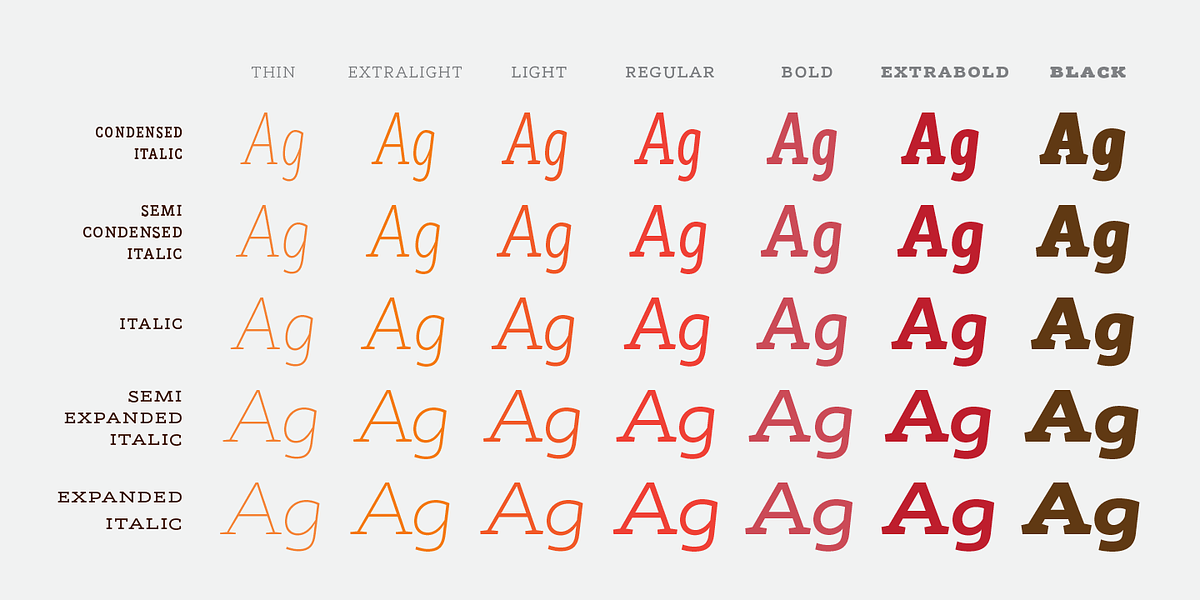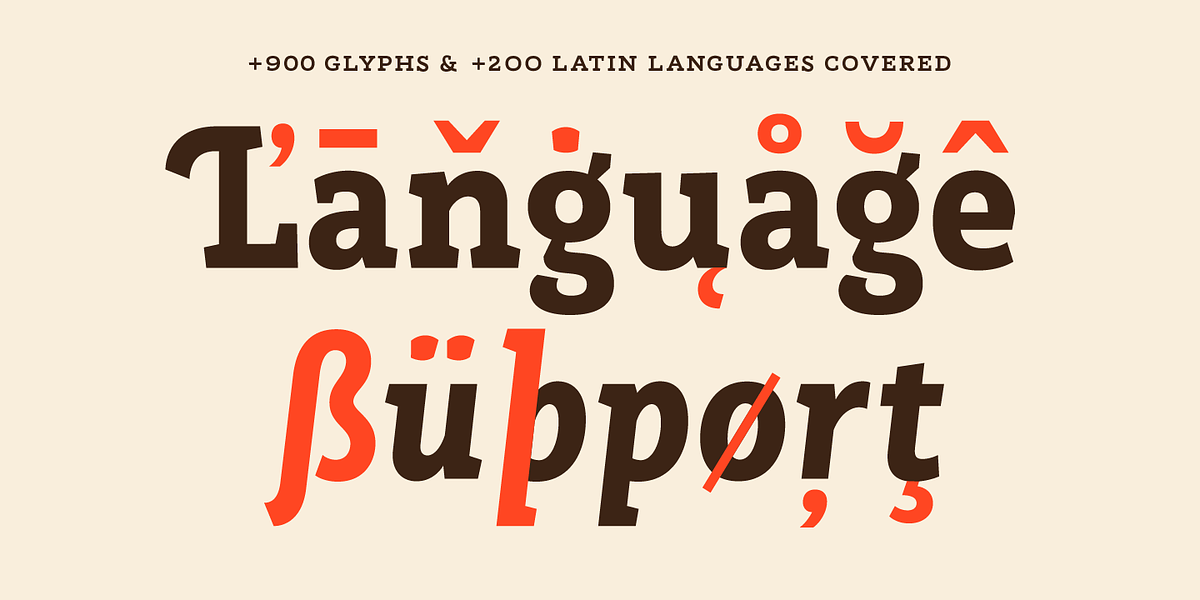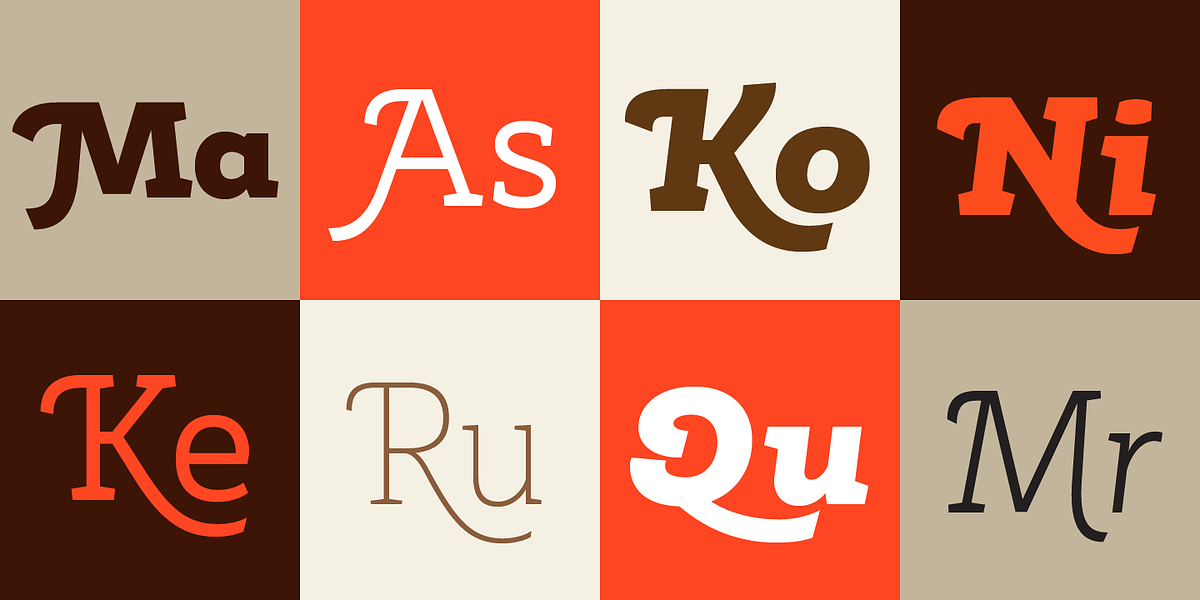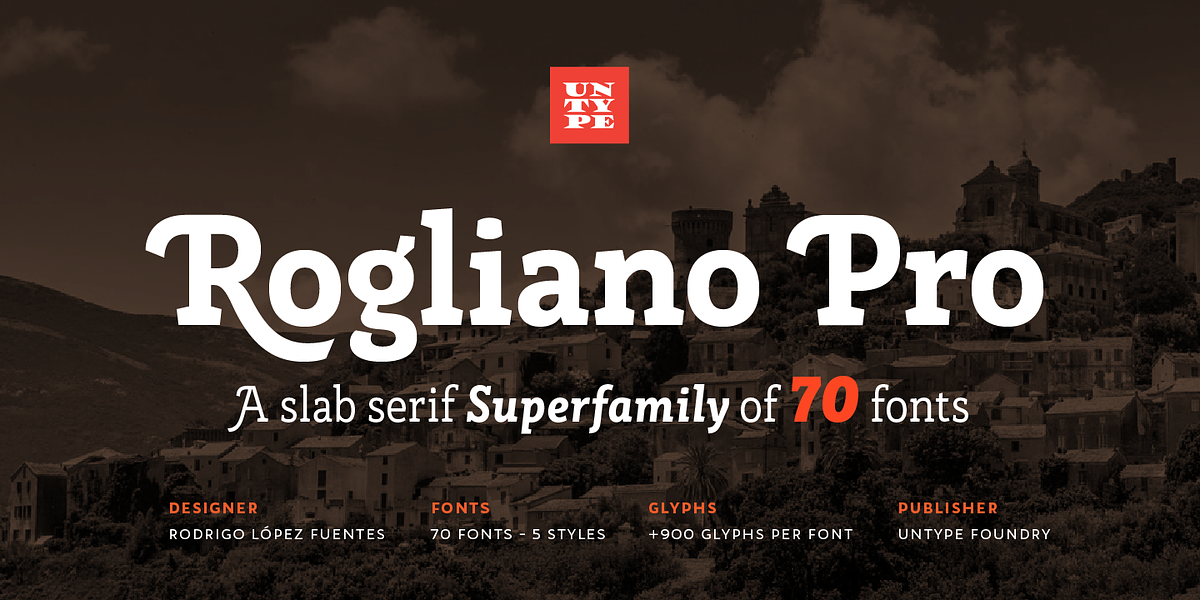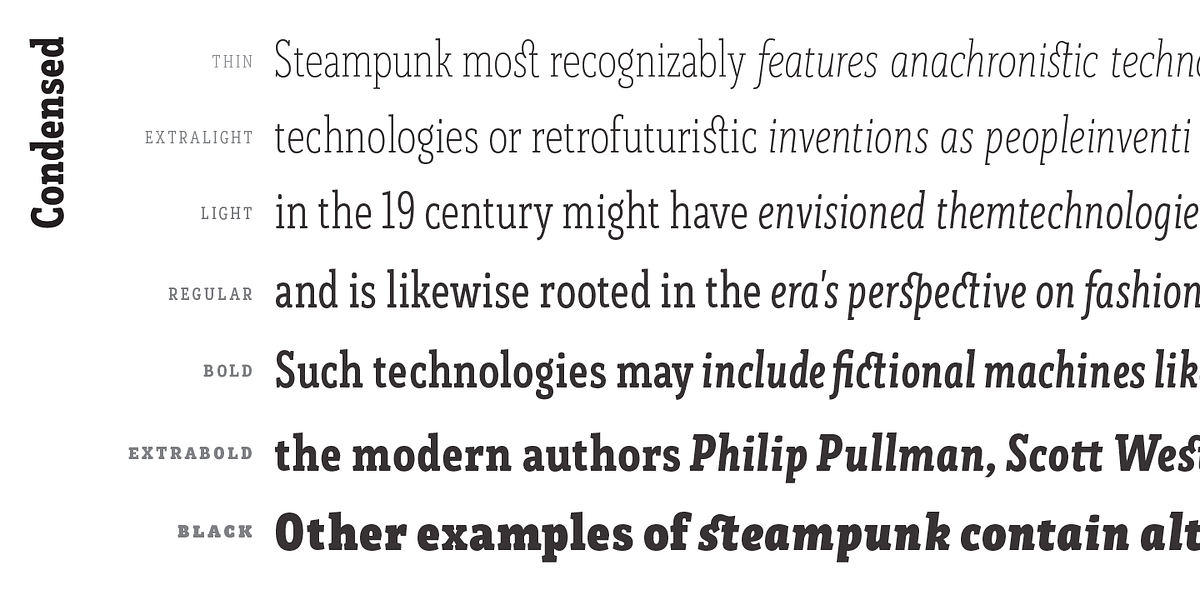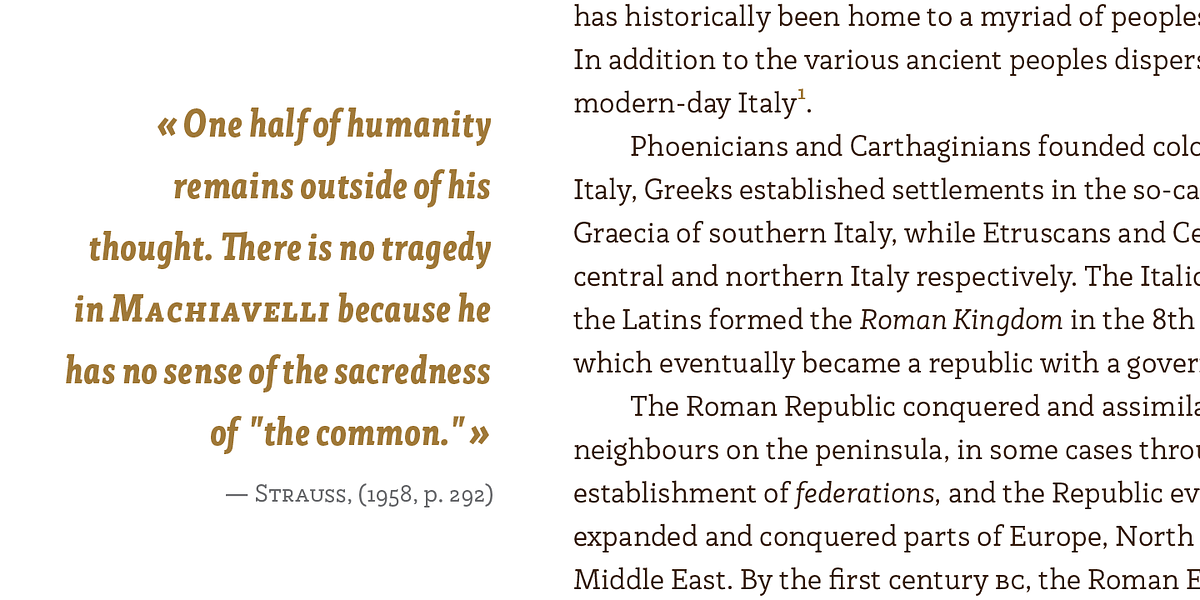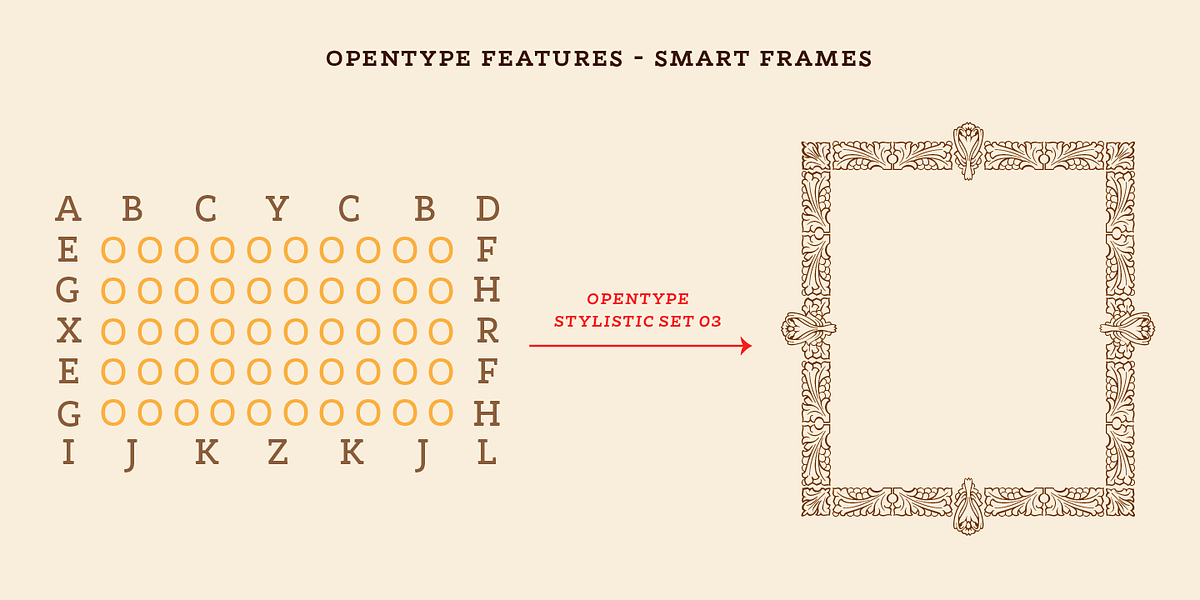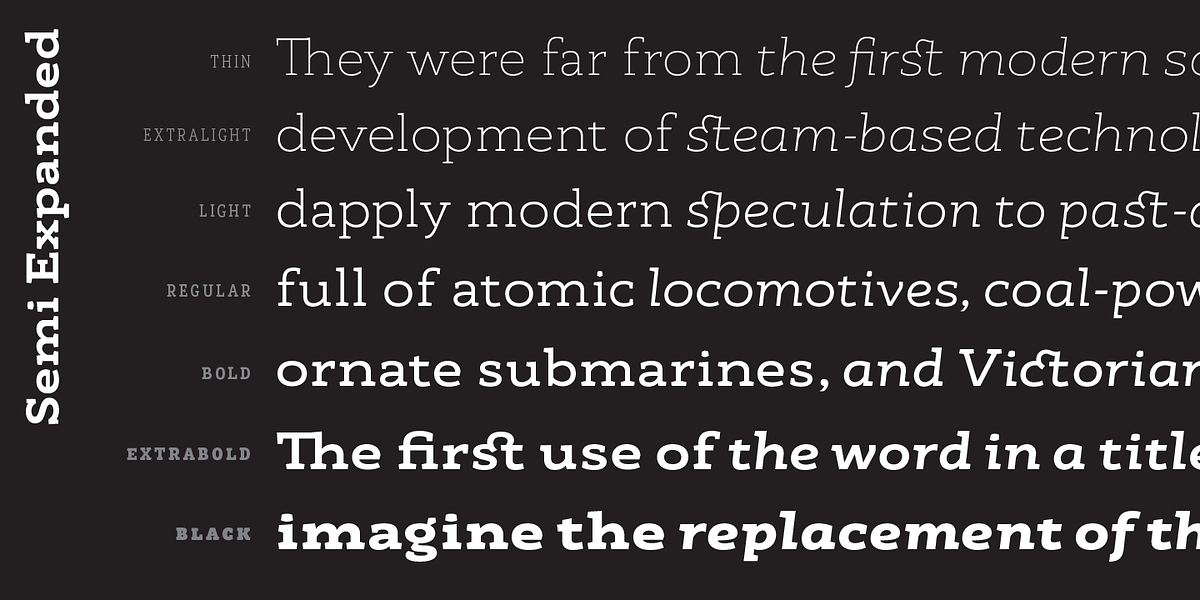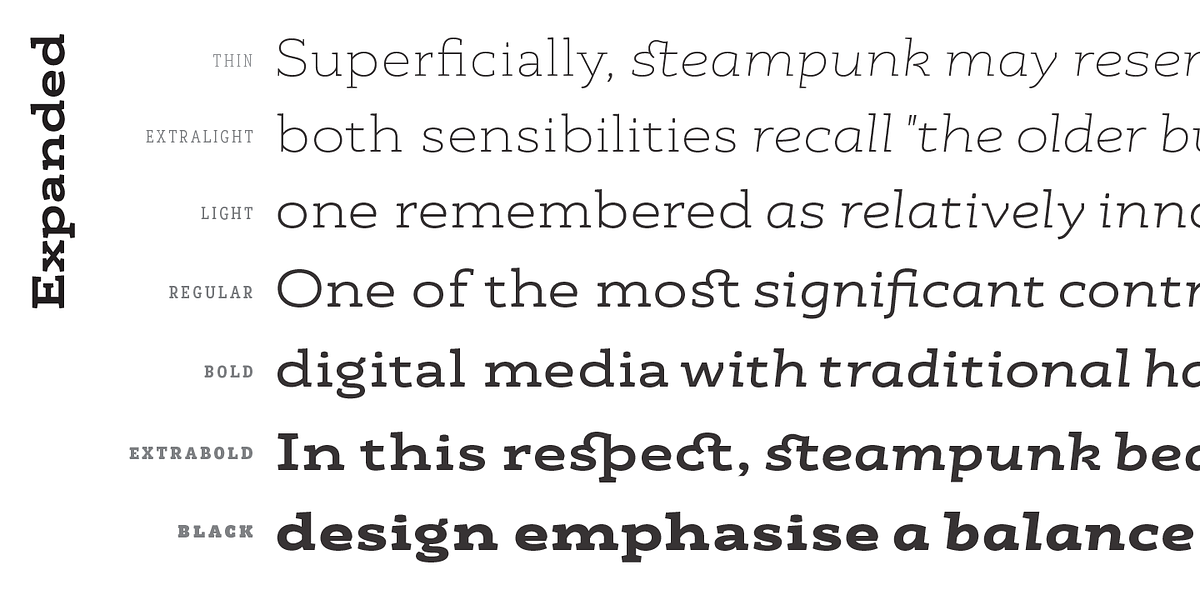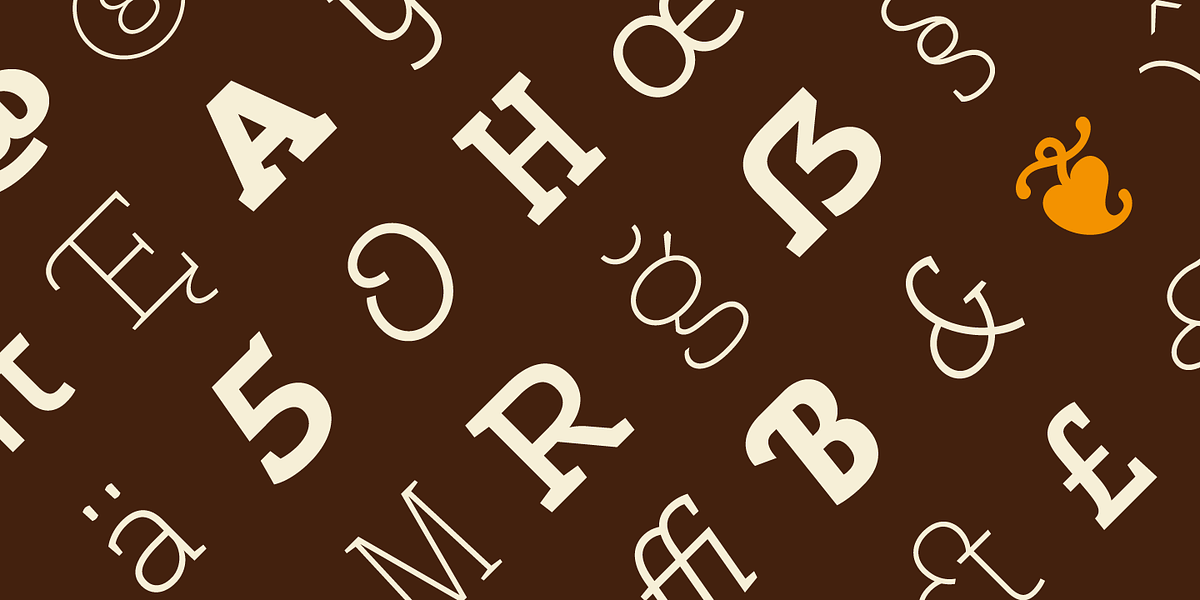
Rogliano Pro
RoglianoPro is a comprehensive humanist slab serif typeface family consisting of 70 fonts across 7 weights and 5 styles, with matching italics. It draws inspiration from Victorian lettering and lithographic posters, offering a balance of strength and warmth. The typeface excels in both small text settings due to its high legibility and large display sizes thanks to its finely-detailed letterforms. RoglianoPro's versatility allows it to adapt from mechanical to humanistic voices, making it suitable for diverse applications ranging from branding and editorial design to posters and logos.